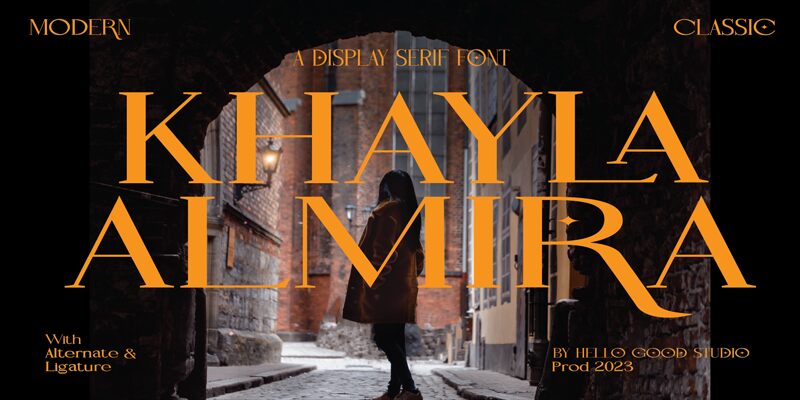
Khayla Almira Line Italic
Khayla Almira Line Italic font by Studio Hello Good balances its sophisticated and elegant appearance between the classic and the contemporary. The outlined serif design has a refined aesthetic and delicate curves that will captivate any audience. The condensed width makes it highly legible, with an overall calm vibe often associated with luxury goods and services.
Such a modern serif is ideal for web projects, print publications, magazines, digital marketing posters, advertisements, or logos. You can achieve amazing results in packaging designs for prestigious brands or any price tags in fashion boutique shops. Use this free typeface to create book covers and titles or even decorate calendar spreads!